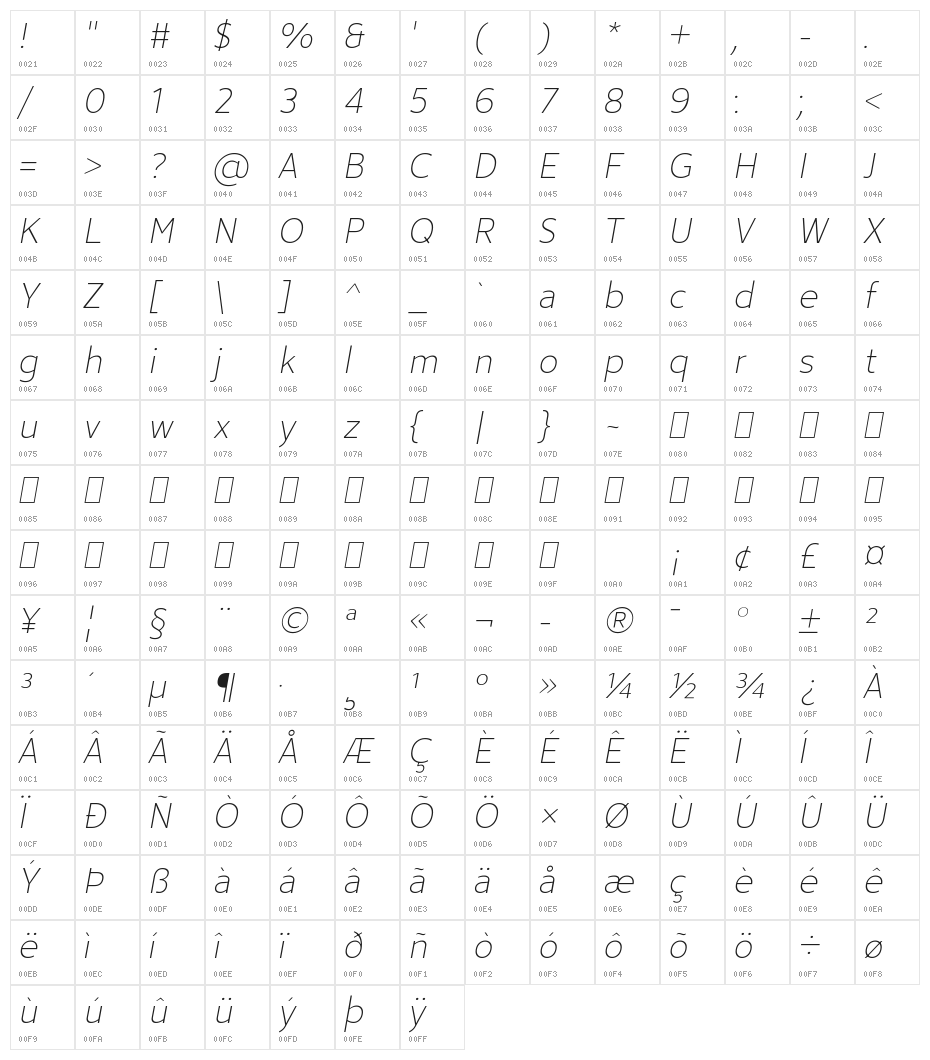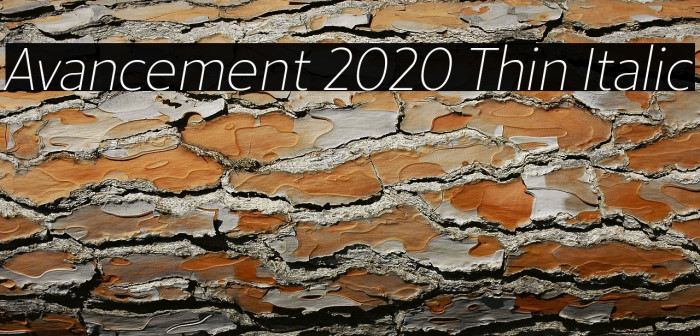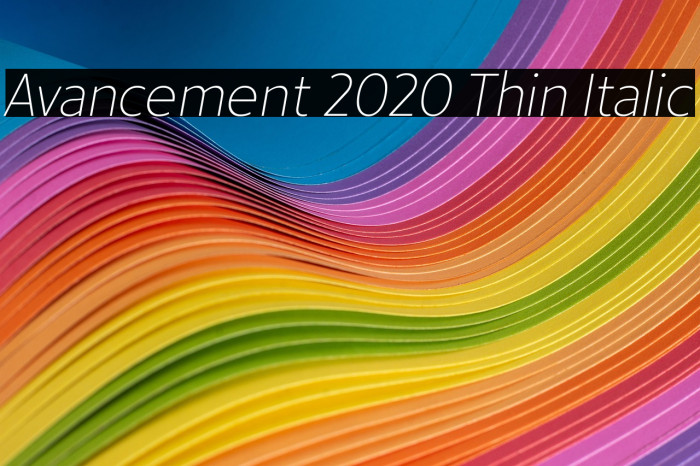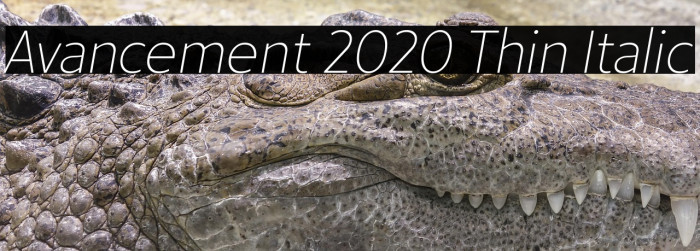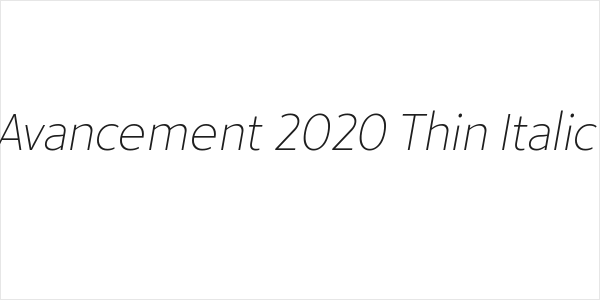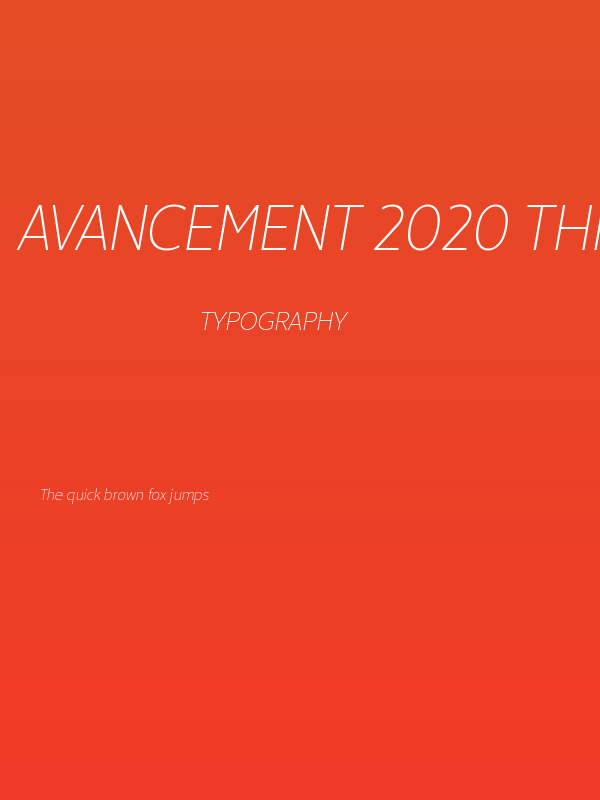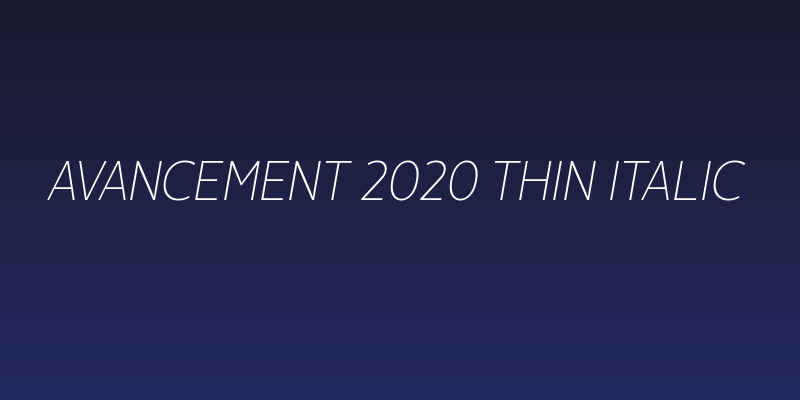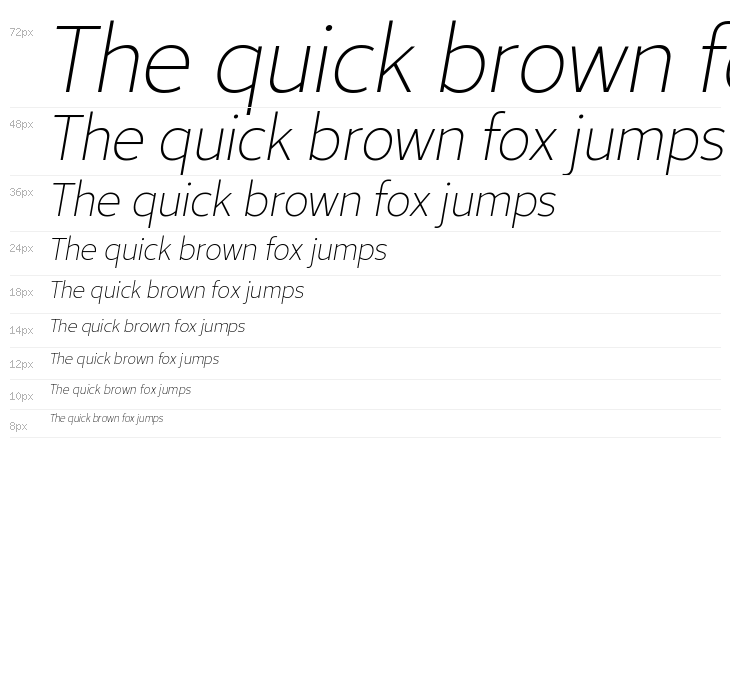
Avancement 2020 Thin Italic Font
Avancement 2020 Thin Italic Description
This font features a sleek and modern design with a thin, elegant structure. The italic style adds a dynamic and sophisticated touch, making it suitable for contemporary projects. The characters are well-proportioned with a slight slant, enhancing readability while maintaining a stylish appearance. The font includes a full set of uppercase and lowercase letters, numbers, and a variety of special characters, allowing for versatile use across different design needs. Its clean lines and minimalistic aesthetic make it ideal for projects that require a refined and polished look.